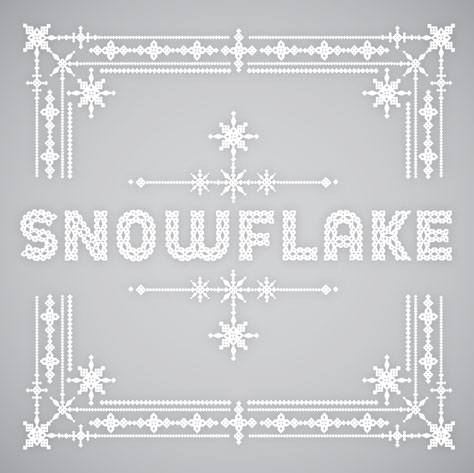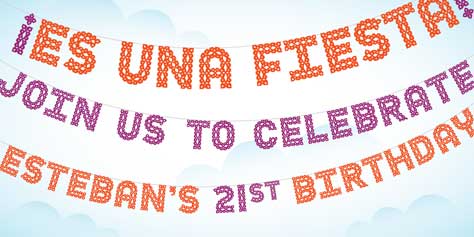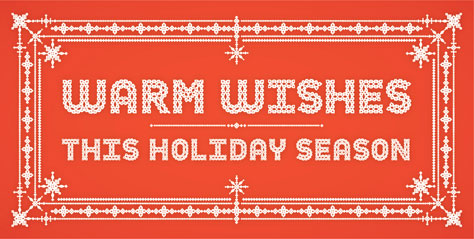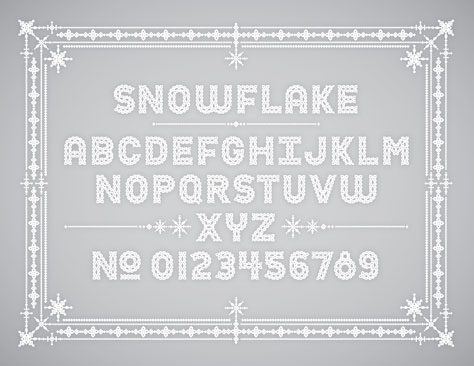
Prep for Winter Now: New "Snowflake" Font
Snowflake, designed by Jessica Hische, is a new display font that was modeled after the cut paper snowflakes many of us made as children.
This $59 typeface includes a full alphabet with accent characters, numbers, punctuation, and many fun snowflake ornaments for borders, patterns, or to just sprinkle about!
While it would be wonderful for winter and the holidays, Snowflake could also be used to emulate crochet work and Mexican papel picado, making it useful in all seasons.